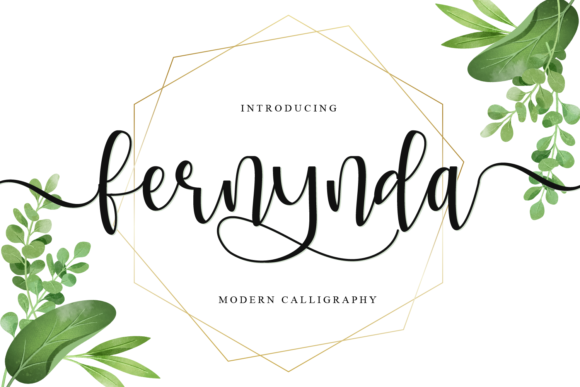
Fernynda Font
Journey into the realm of elegance and charm with Fernynda Font, a captivating script font family that exudes timeless beauty and modern flair. Inspired by the grace of classic typography, Fernynda is poised to elevate your creative projects to new heights.
Immerse yourself in the allure of Fernynda's meticulously crafted characters, each stroke infused with a touch of artistry. Its enchanting curves and delicate flourishes create a visual symphony that dances across the page, evoking a sense of timeless sophistication. Whether you're crafting heartfelt wedding invitations, designing elegant stationary art, or captivating social media posts, Fernynda is your trusted companion, transforming your words into works of art.
Unleash your creativity and let Fernynda guide you through a world of boundless possibilities. Its versatility knows no bounds, allowing you to effortlessly create stunning logos, eye-catching branding materials, enchanting product packaging, and more. The font's inherent charm lends a touch of sophistication to any project, leaving an unforgettable impression on your audience.
Elevate your design repertoire with Fernynda's wealth of special features. Explore a treasure trove of alternate glyphs and ligatures, meticulously designed to enhance the visual appeal of your creations. Experiment with a variety of stylistic sets and swashes, adding intricate details and a touch of whimsy to your text. Fernynda's PUA encoding ensures effortless access to these embellishments, empowering you to unleash your creative vision without limits.
Indulge in the beauty of Fernynda Font, a font crafted with love and passion, ready to transform your creative dreams into a breathtaking reality. Embark on a journey of artistic exploration, where elegance meets innovation, and let Fernynda guide you towards design excellence.